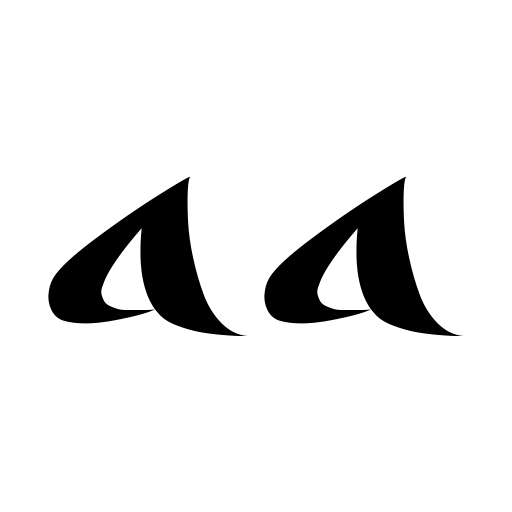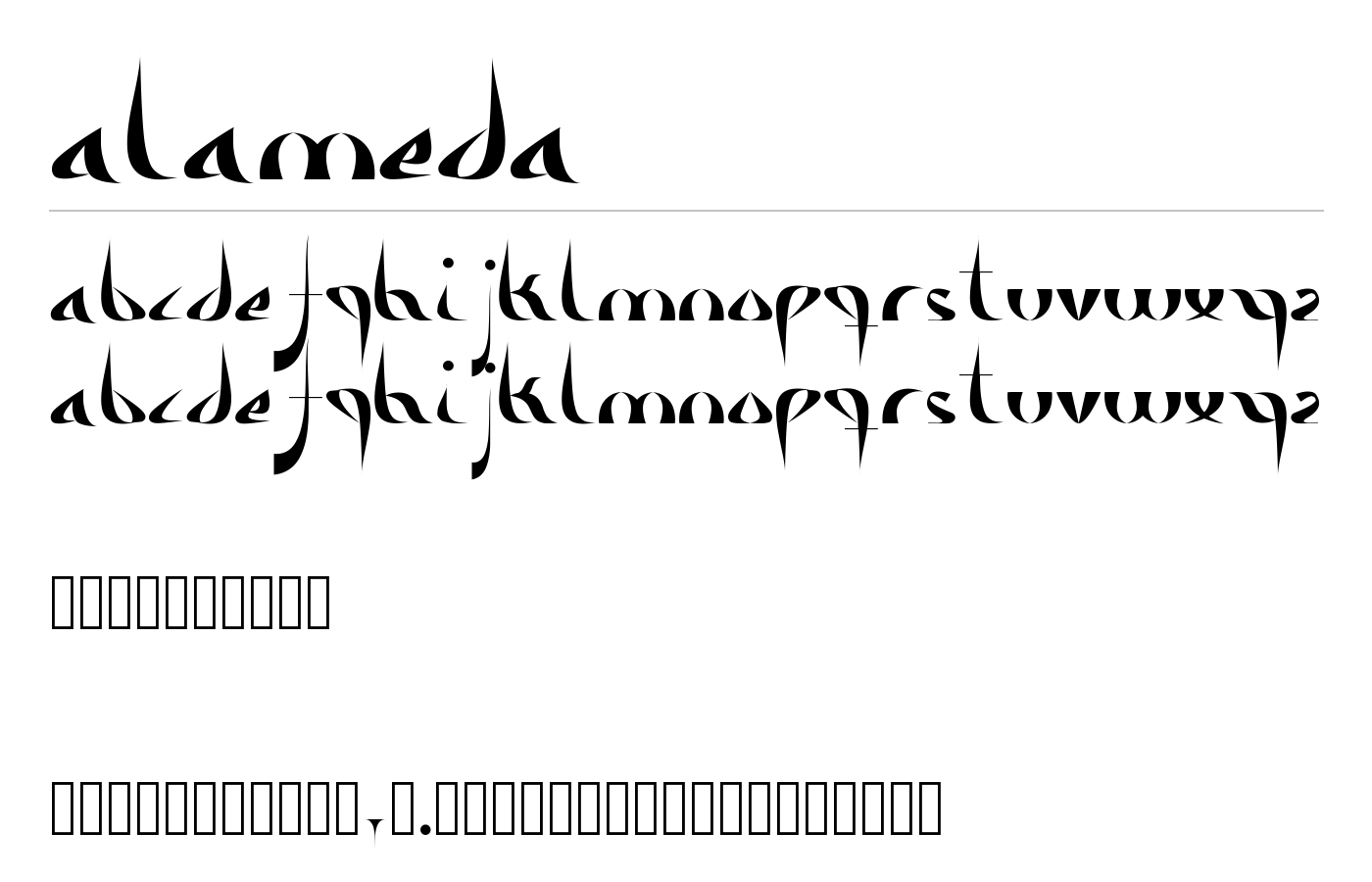
Alameda is a decorative serif font with a highly stylized and dramatic design characterized by sharp, elongated serifs and strong contrast between thick and thin strokes. Its narrow, tall letterforms give it a mysterious and slightly gothic personality, making it ideal for creative and artistic projects that need a bold, distinctive look. This font works best in logos, headlines, and display uses where a unique, eye-catching style is desired.
Alameda Font
About Alameda Font